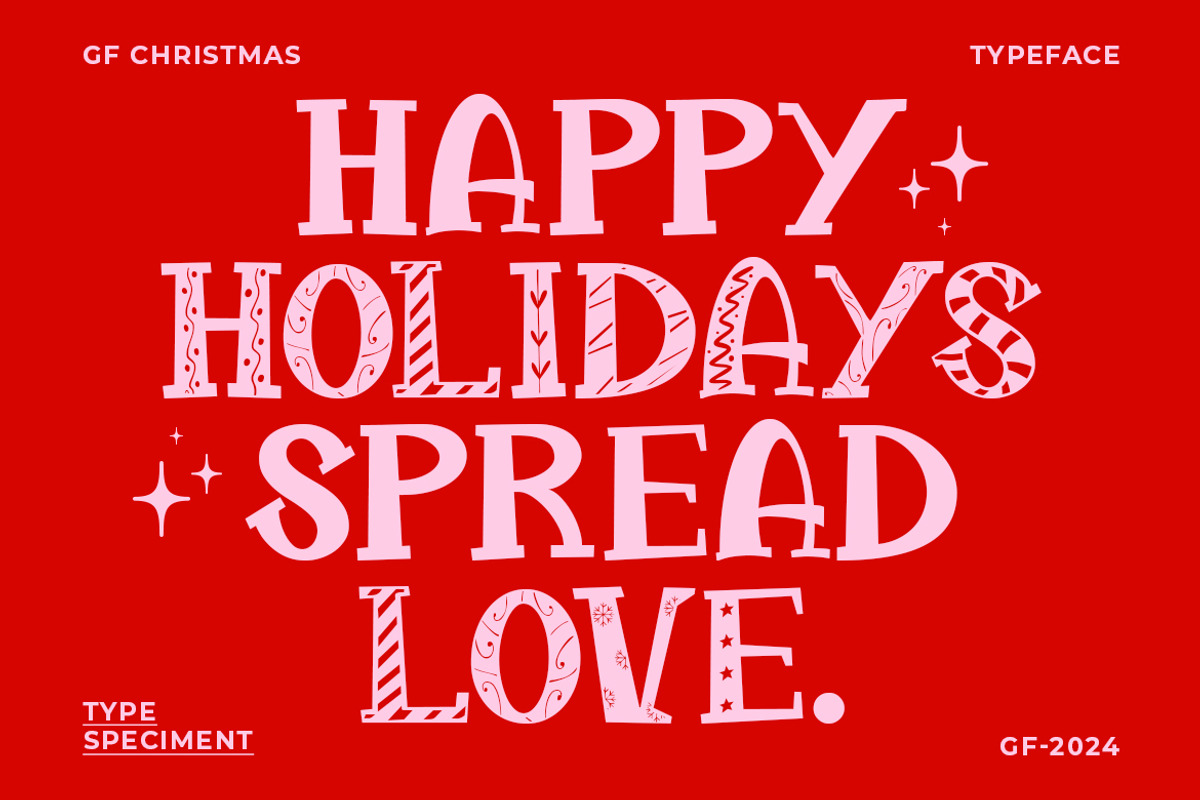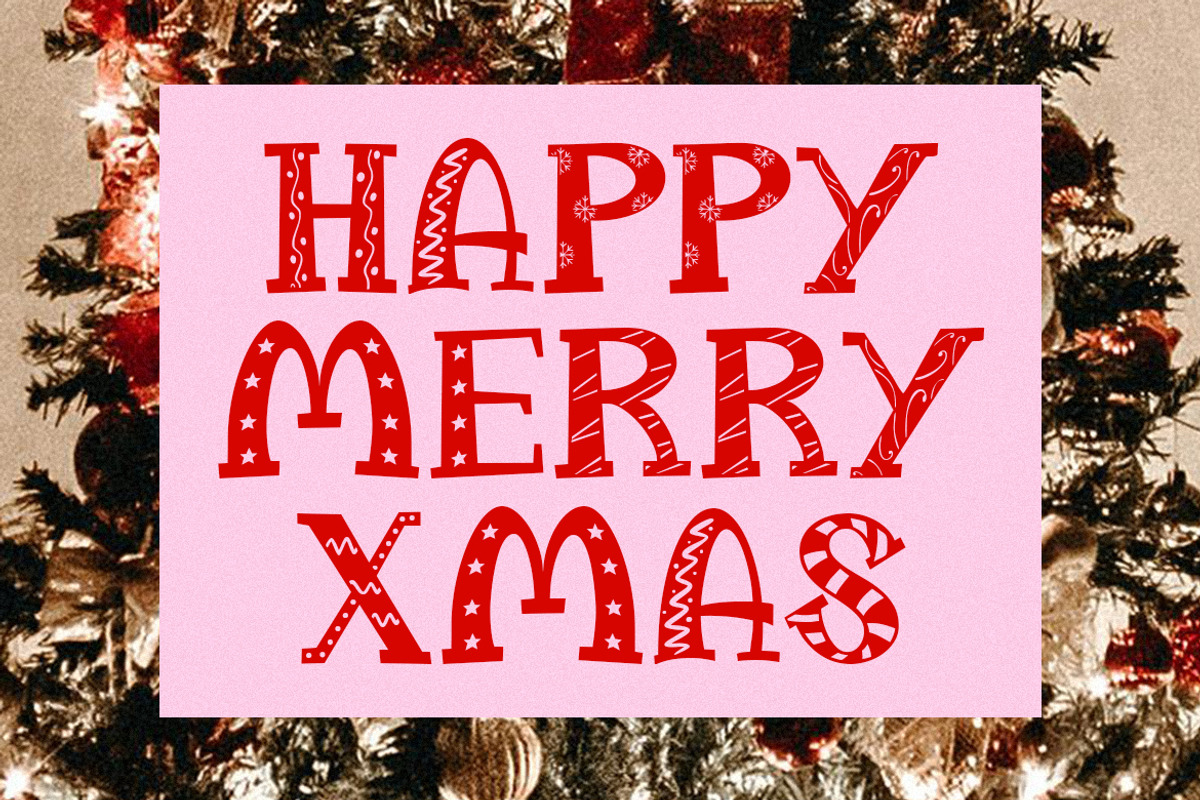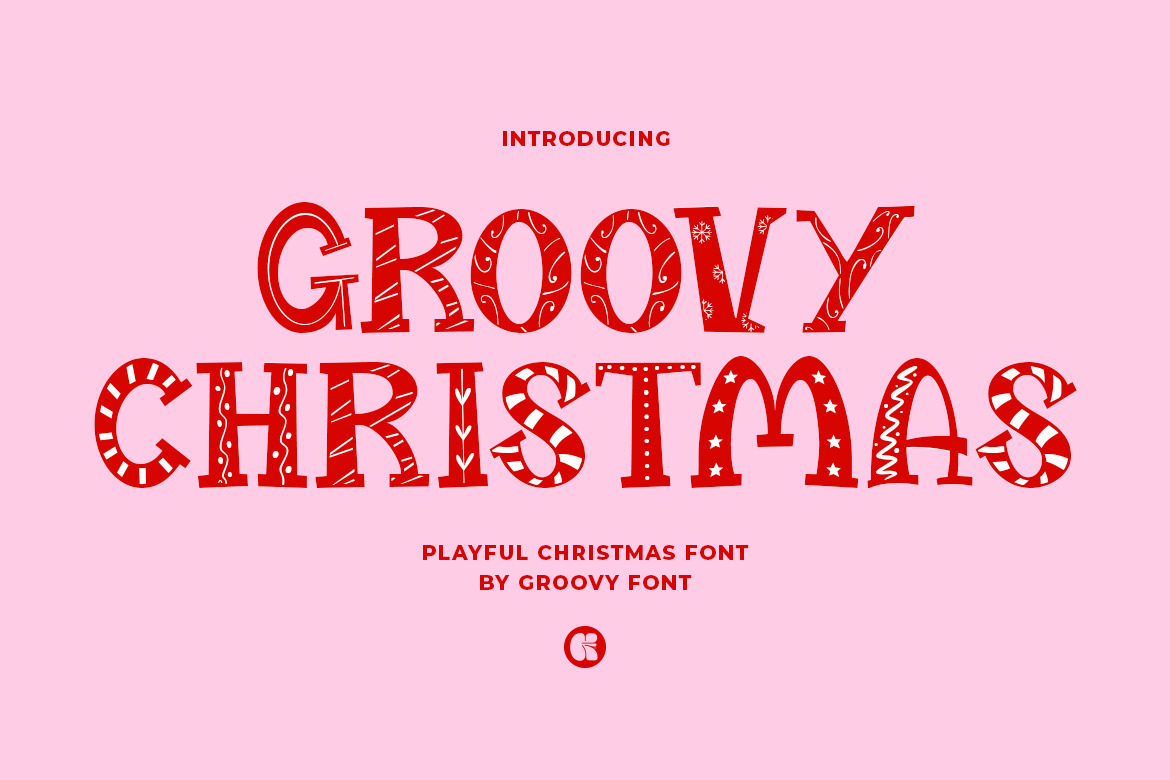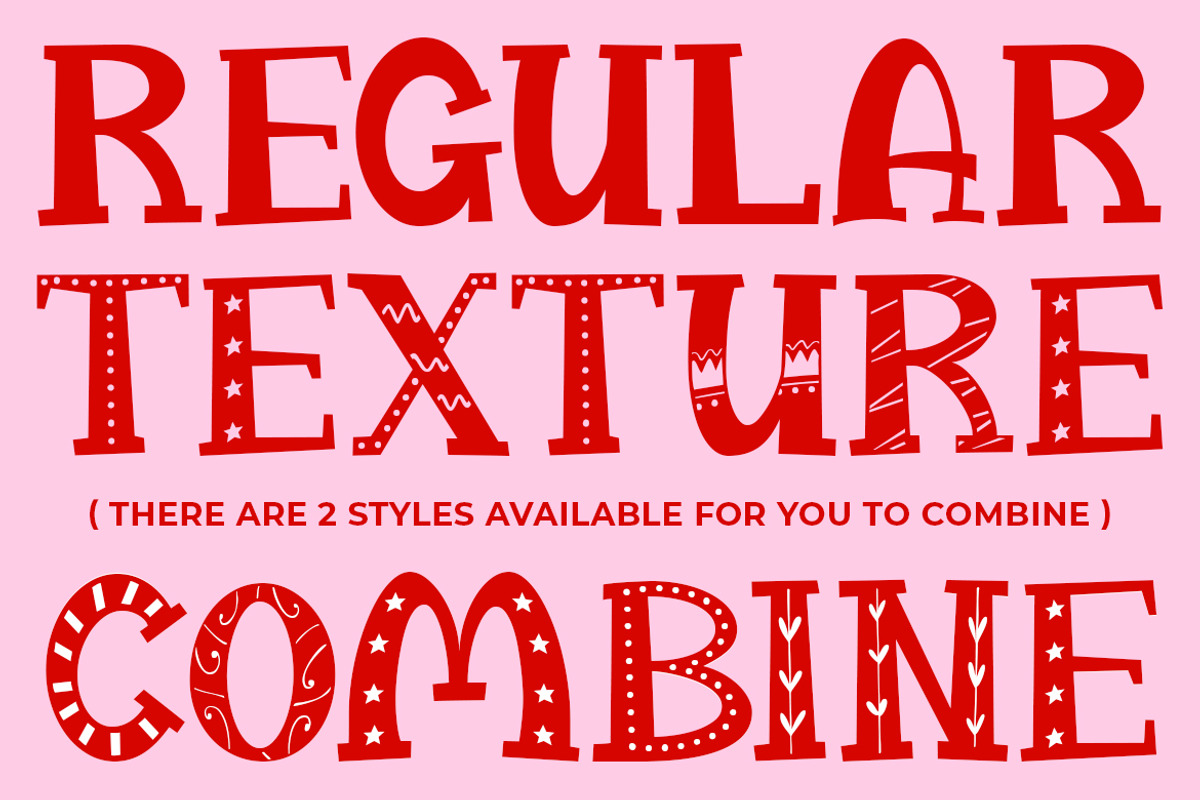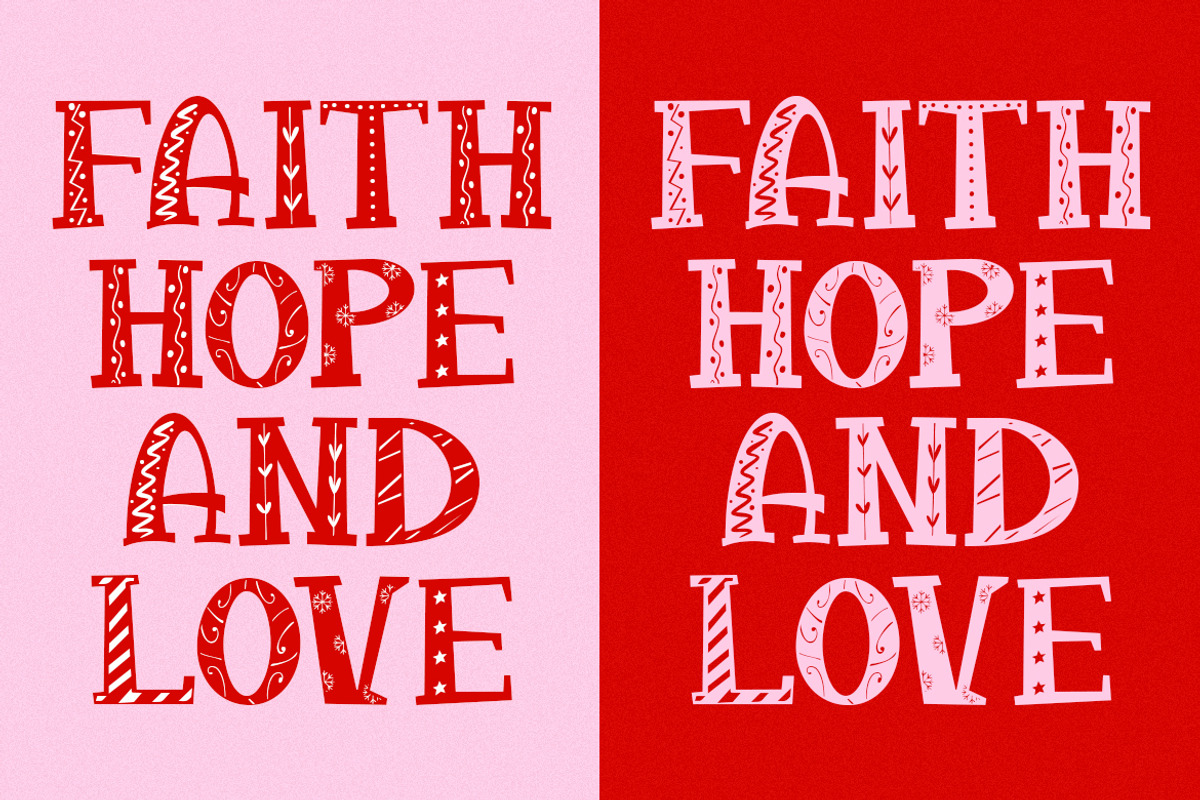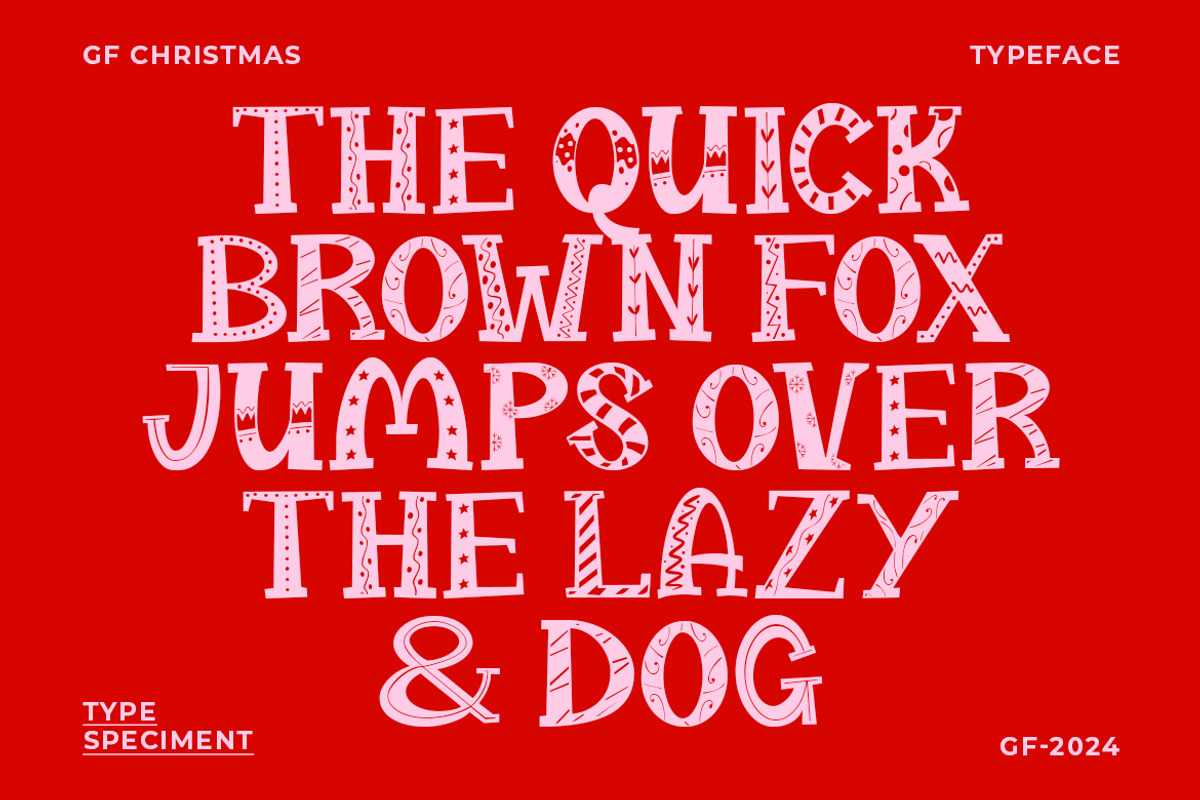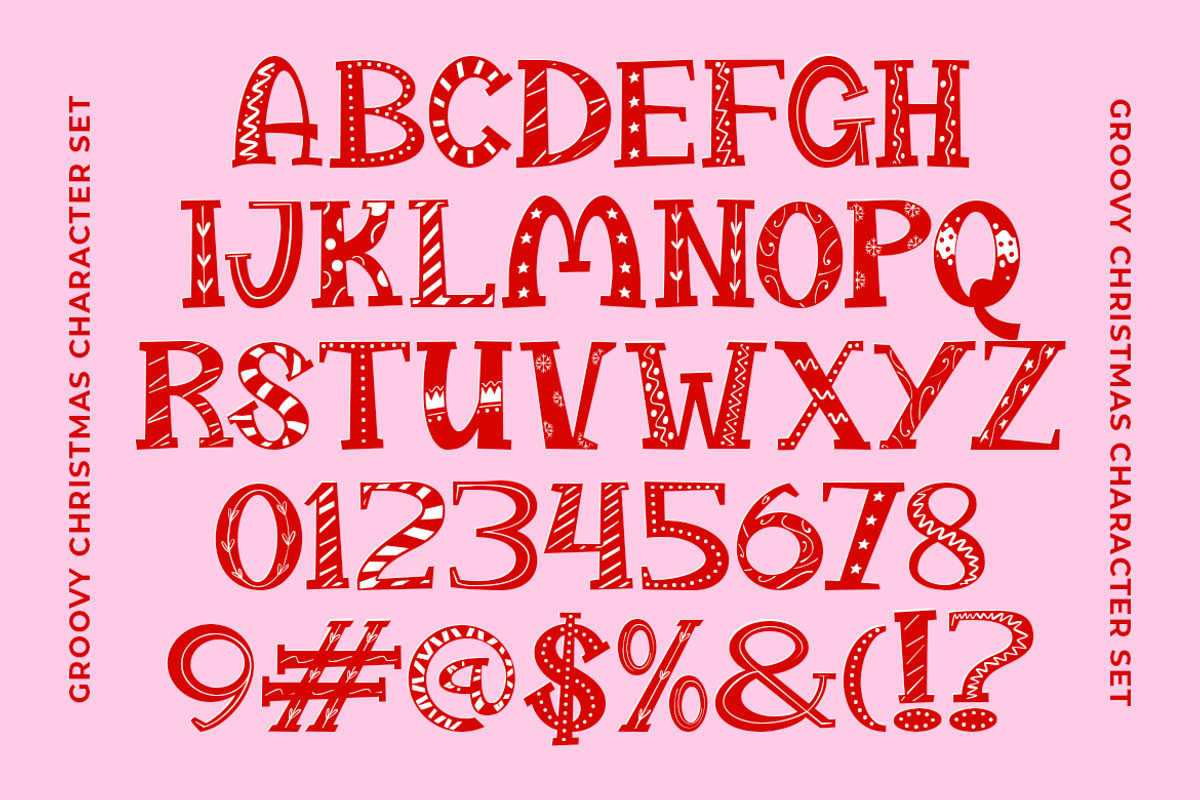
Christmas - Playful Christmas Font
Groovy Christmas is a playful Christmas font designed to add a festive touch to your projects.
This display serif font comes in two styles: regular and texture. The textured style features intricate designs inspired by Christmas themes, making it perfect for holiday designs and creative projects.
Let Groovy Christmas bring the joy and whimsy of the holiday season to your typography!